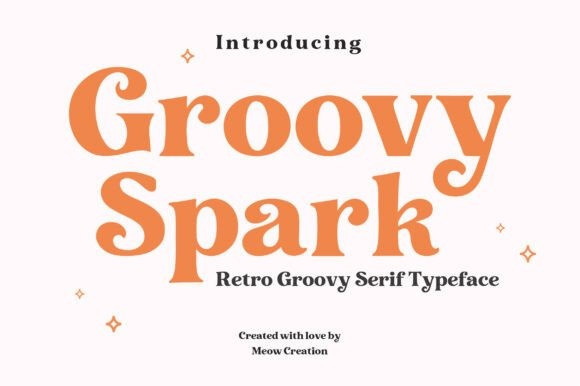
Groovy Spark Font
Groovy Spark Font is a bold retro groovy serif typeface inspired by vintage 70s typography. Its smooth curves and playful serif shapes create a warm, nostalgic feel while still looking modern and stylish. Perfect for T-shirt designs, branding, posters, quotes, packaging, and other creative projects that need a fun retro touch.